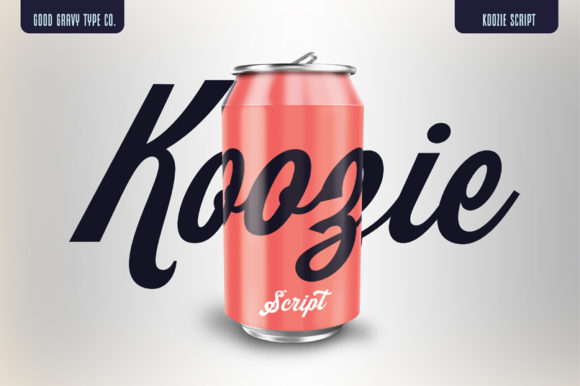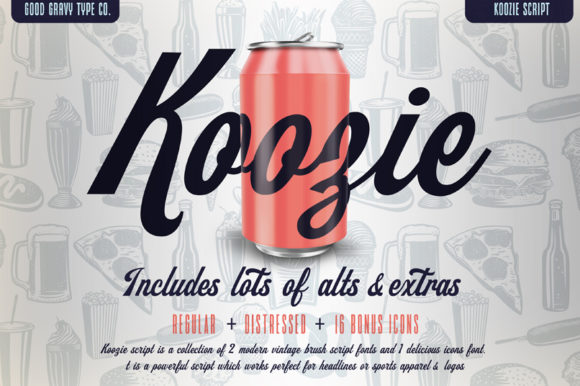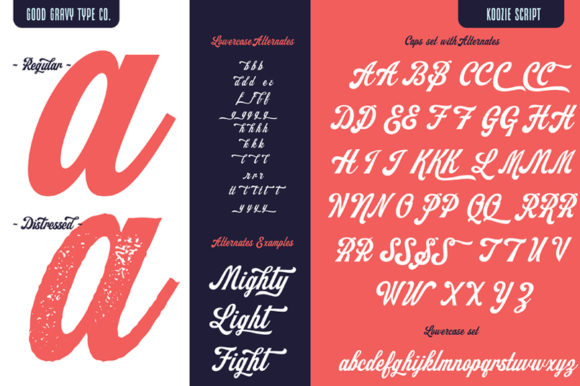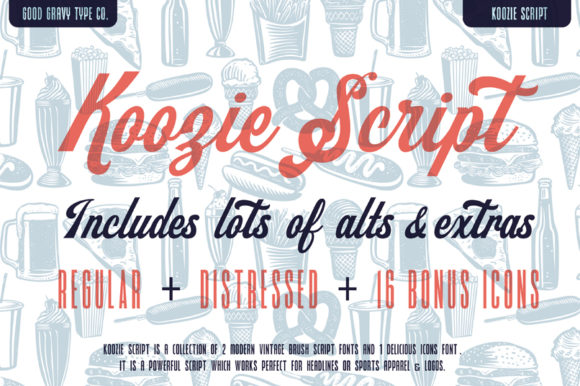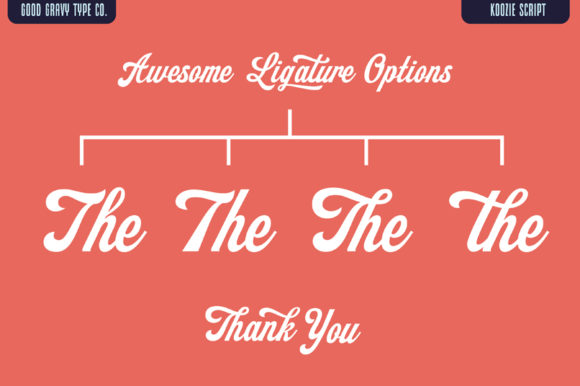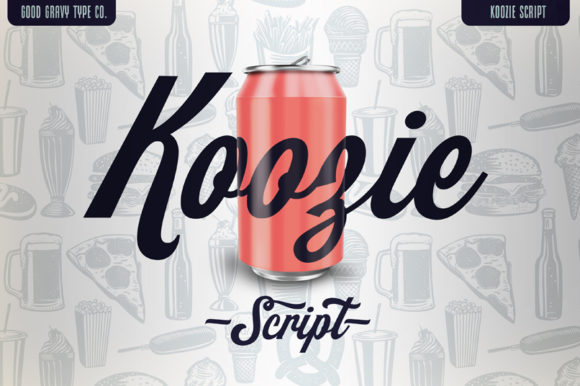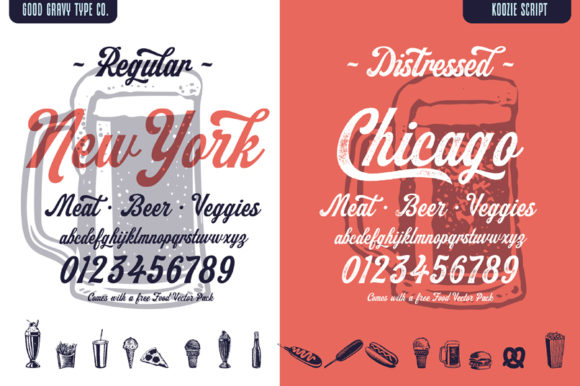
Koozie Font
About Koozie Font
Koozie is an awesome vintage brush script font. It is perfect for logos, headlines, social media posts and much more. Fall in love with its authentic look!